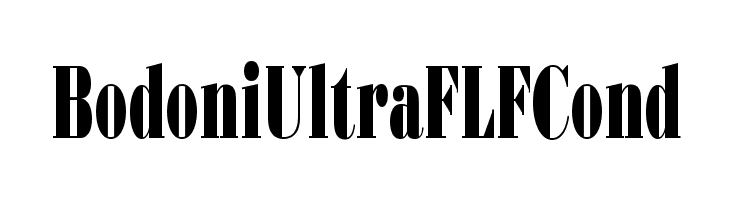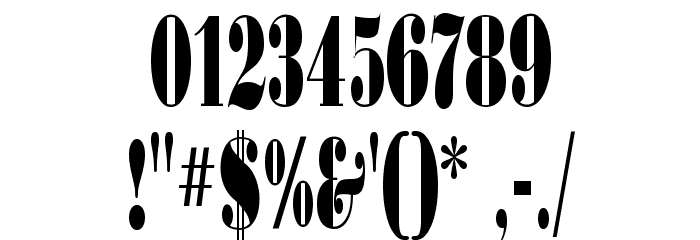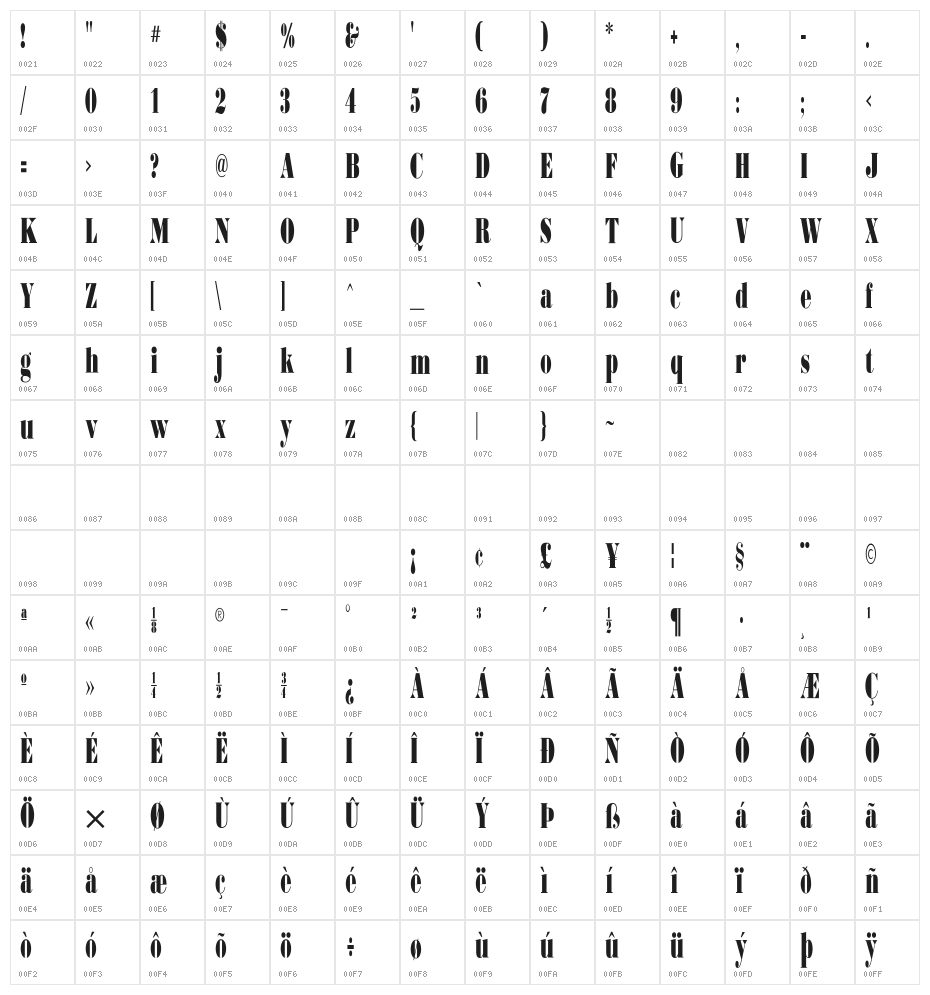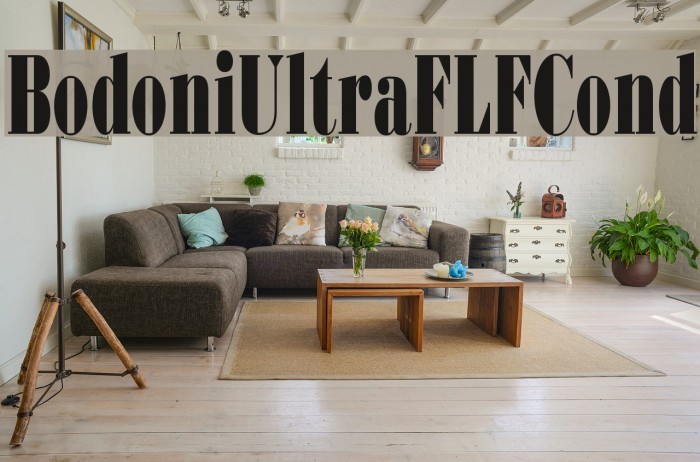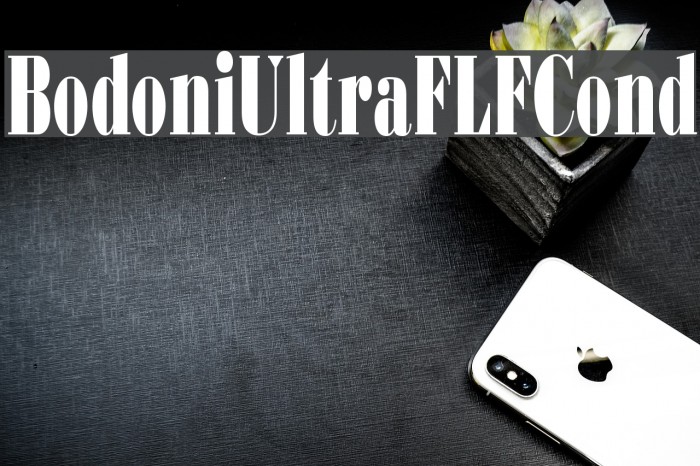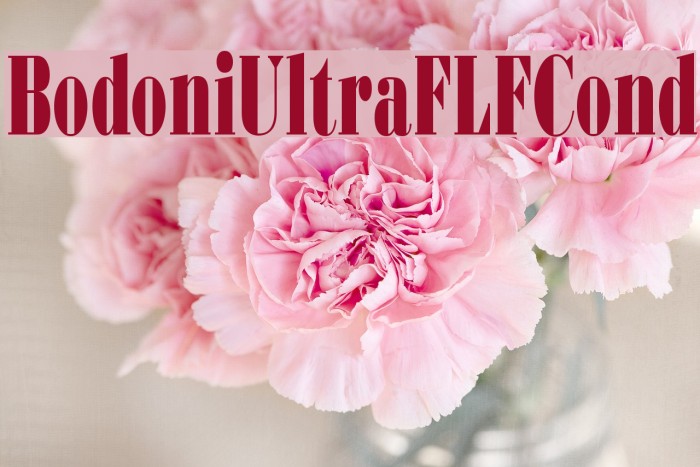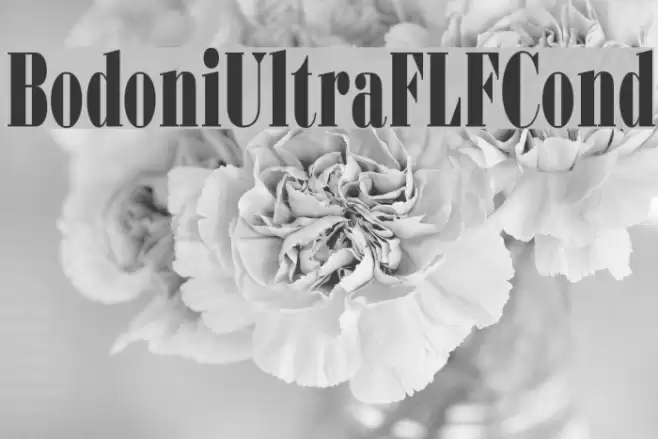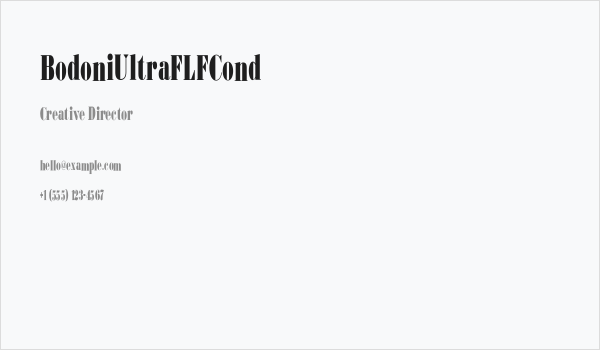
BodoniUltraFLFCond Font
BodoniUltraFLFCond Description
This font exhibits a bold and dramatic style, characterized by its high contrast between thick and thin strokes. The letters are condensed, giving it a compact appearance while maintaining elegance and readability. The uppercase letters are tall and commanding, while the lowercase letters retain a classic serif structure. The numerals are consistent with the overall style, featuring the same high contrast and condensed form. Special characters are designed to match the boldness and sophistication of the alphabet, making this font suitable for impactful and stylish designs.